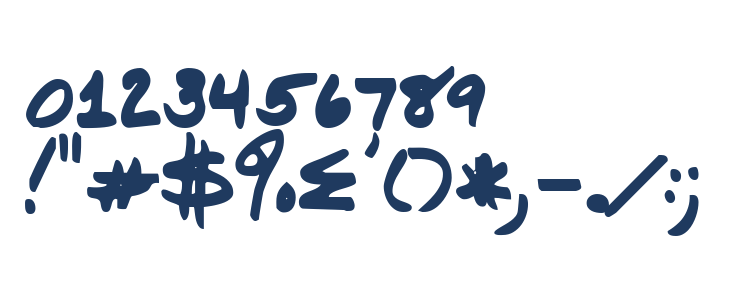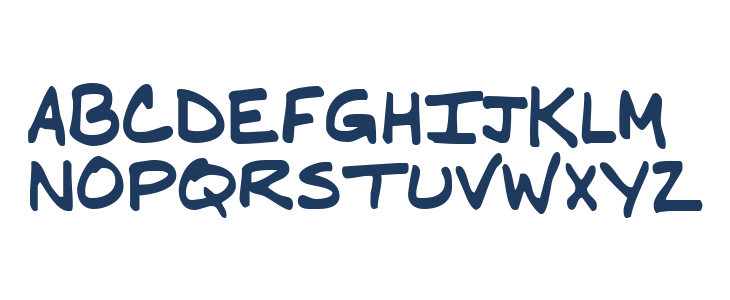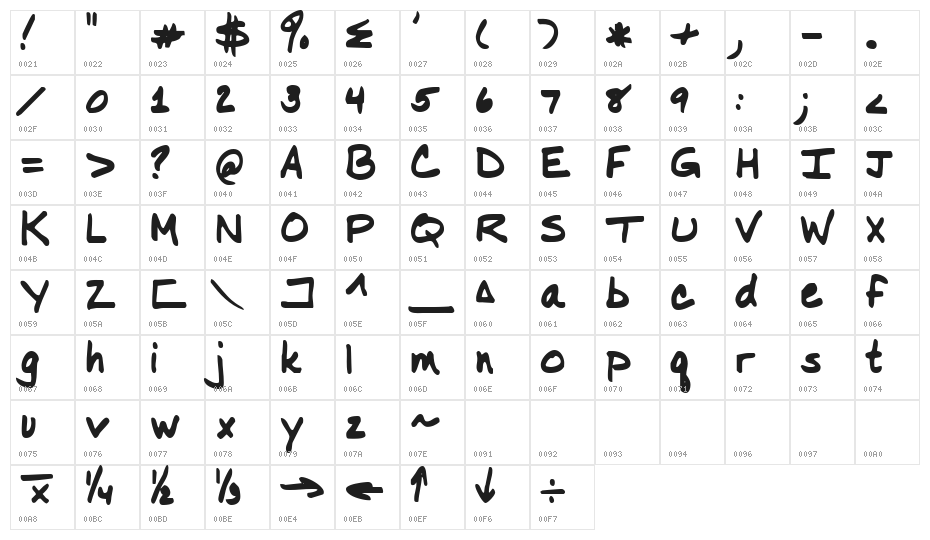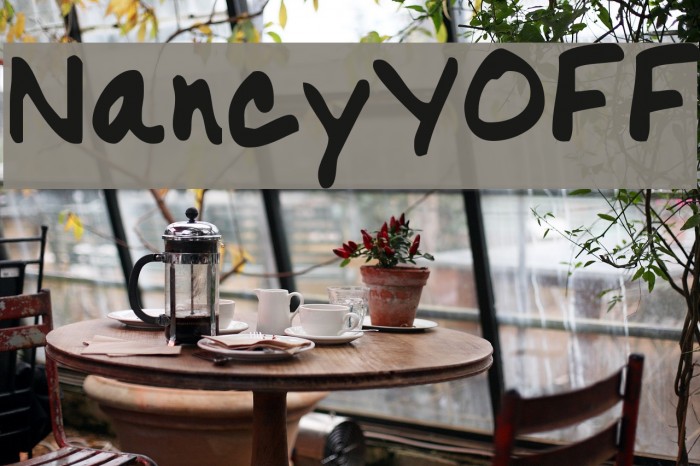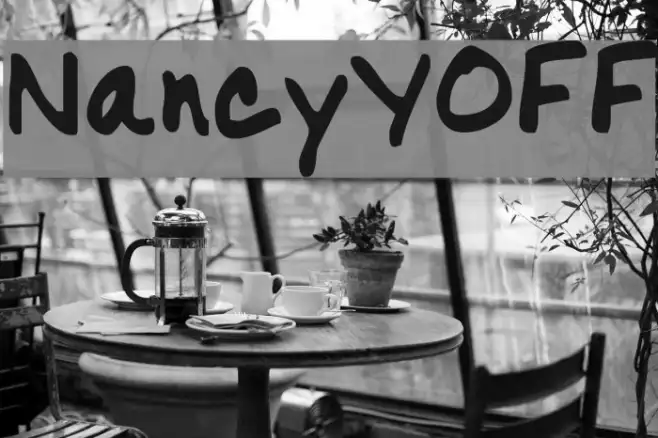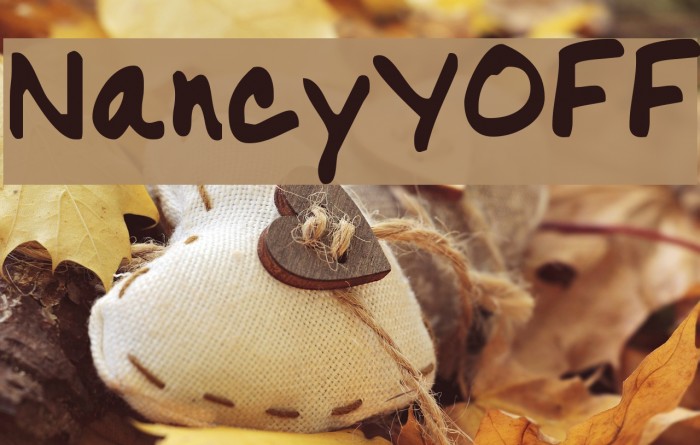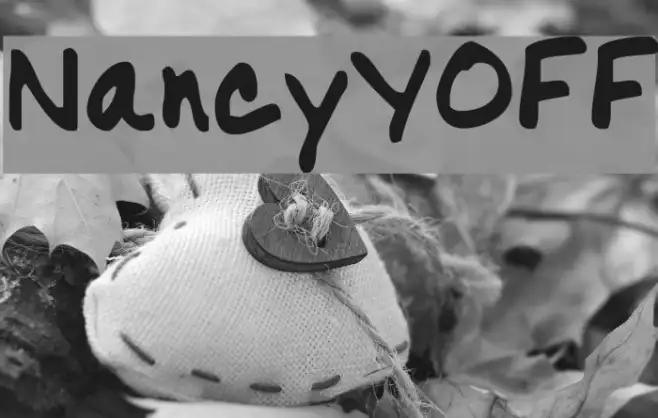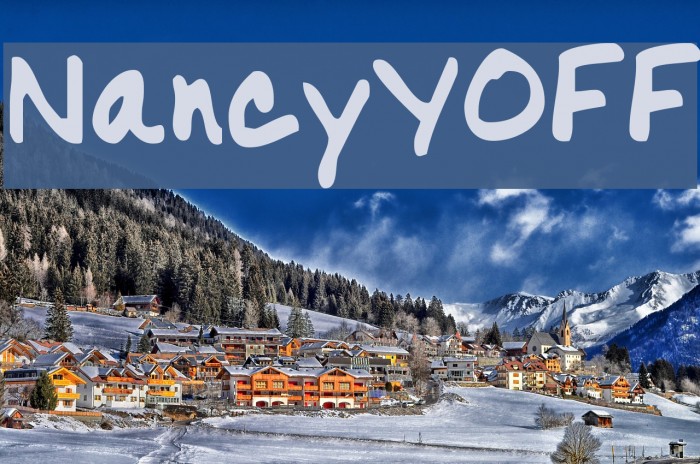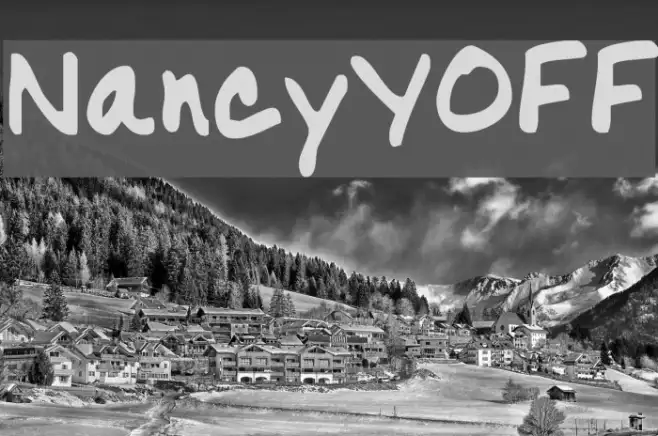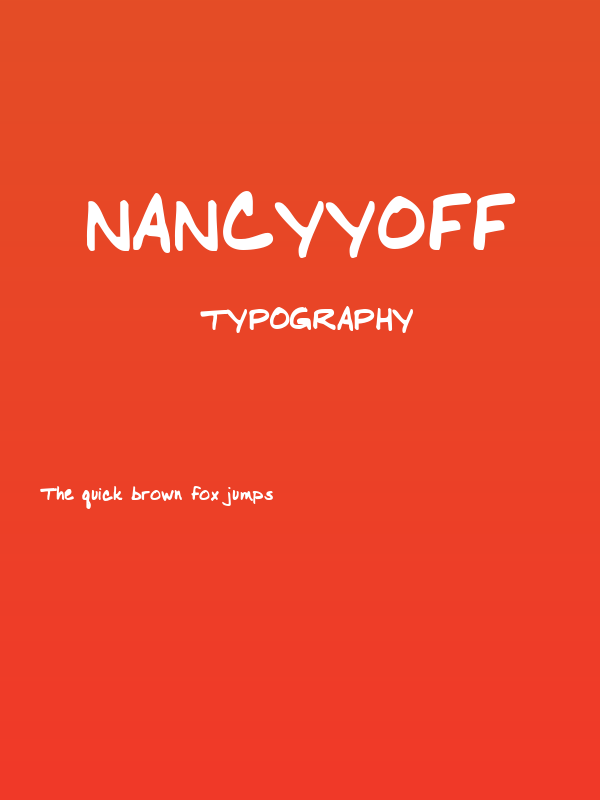
NancyYOFF Font
NancyYOFF Description
This font features a playful and casual handwritten style, characterized by its bold and rounded letterforms. The strokes are thick and consistent, giving it a friendly and approachable appearance. The uppercase and lowercase letters maintain a uniform width, while the numerals and special characters complement the overall style with their rounded edges and playful curves. The font's informal nature makes it suitable for projects that require a personal touch or a fun, relaxed vibe.
| Proposed Projects | Ideal for children's books, greeting cards, playful branding, and casual invitations. |